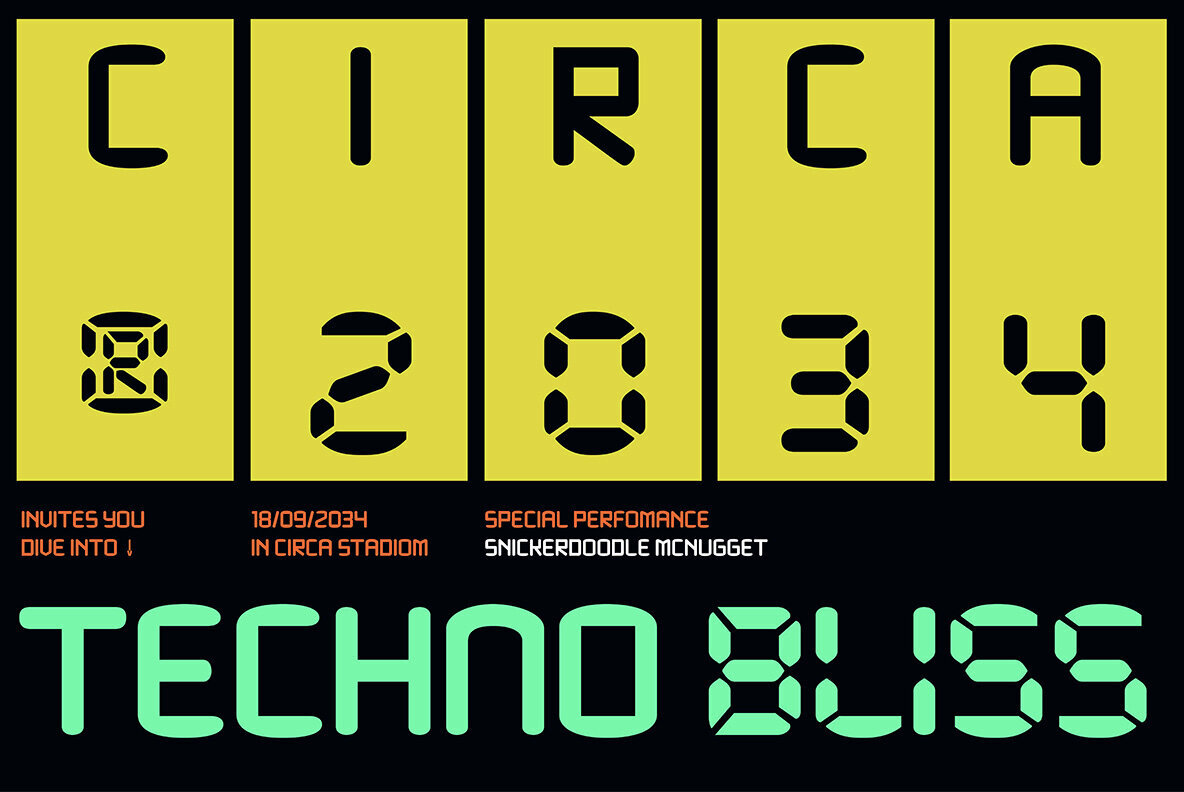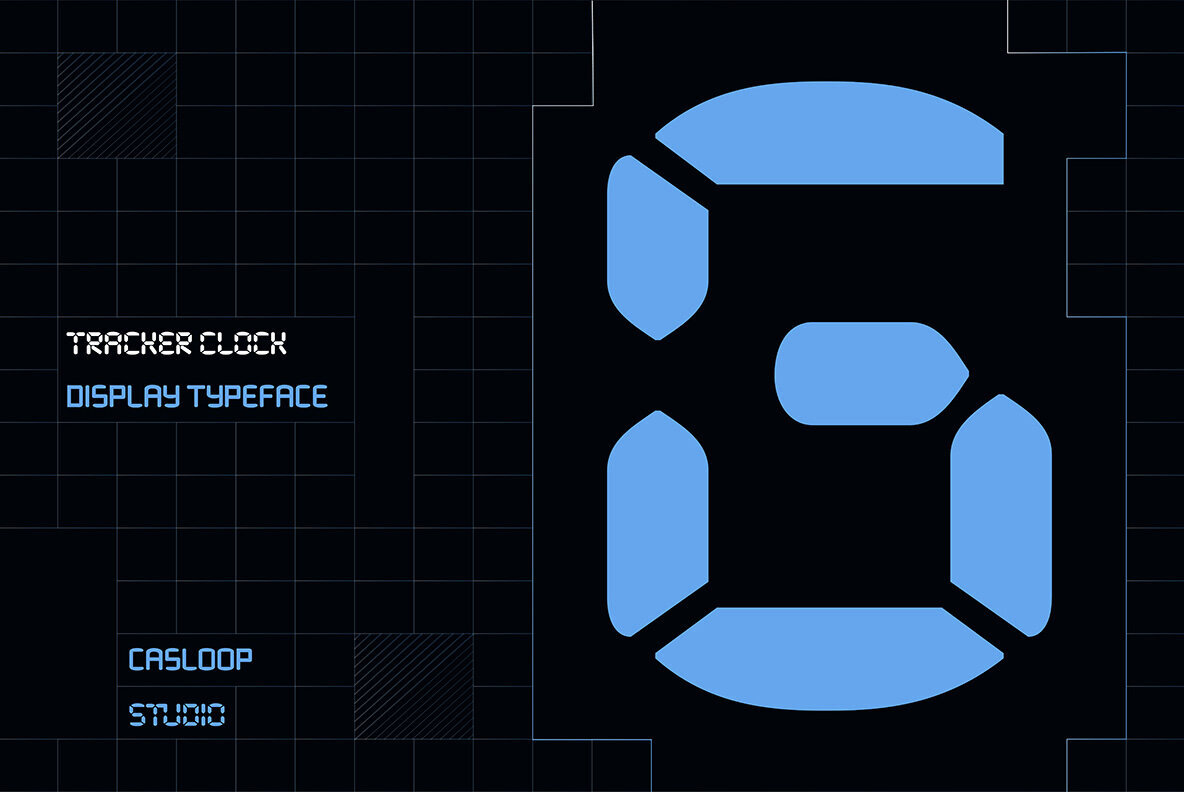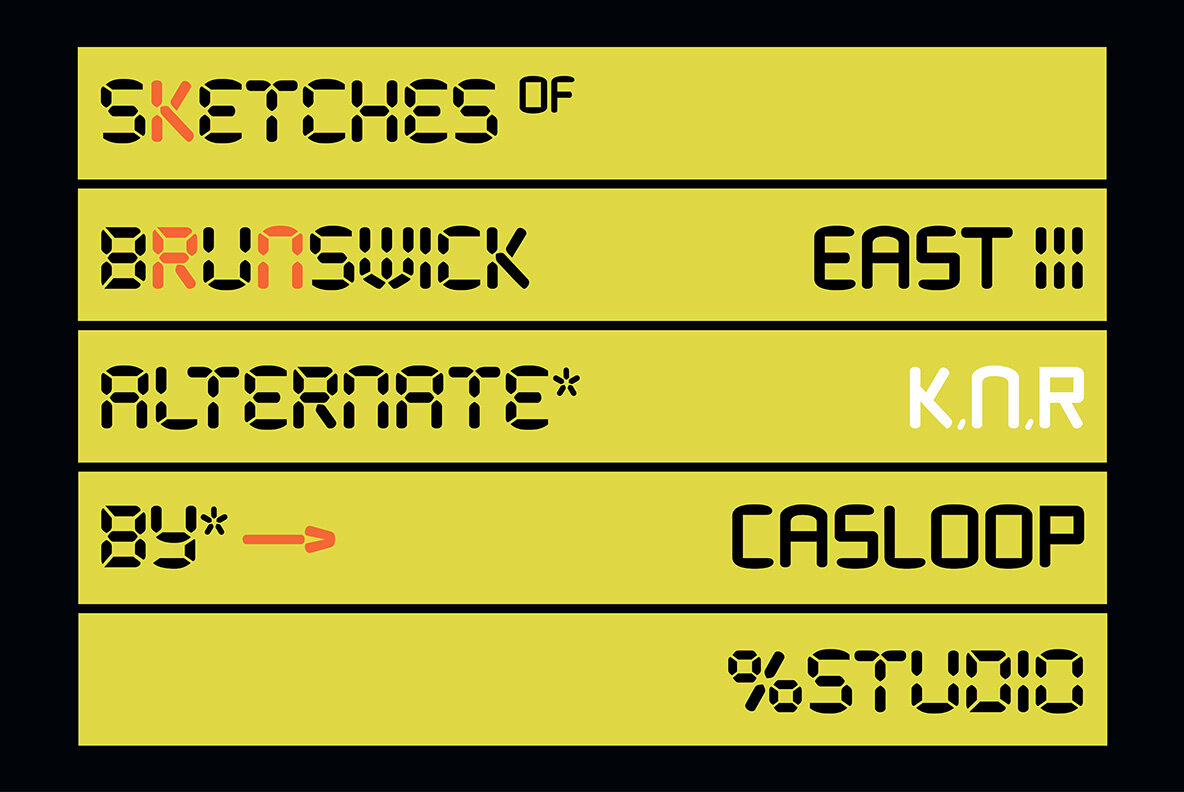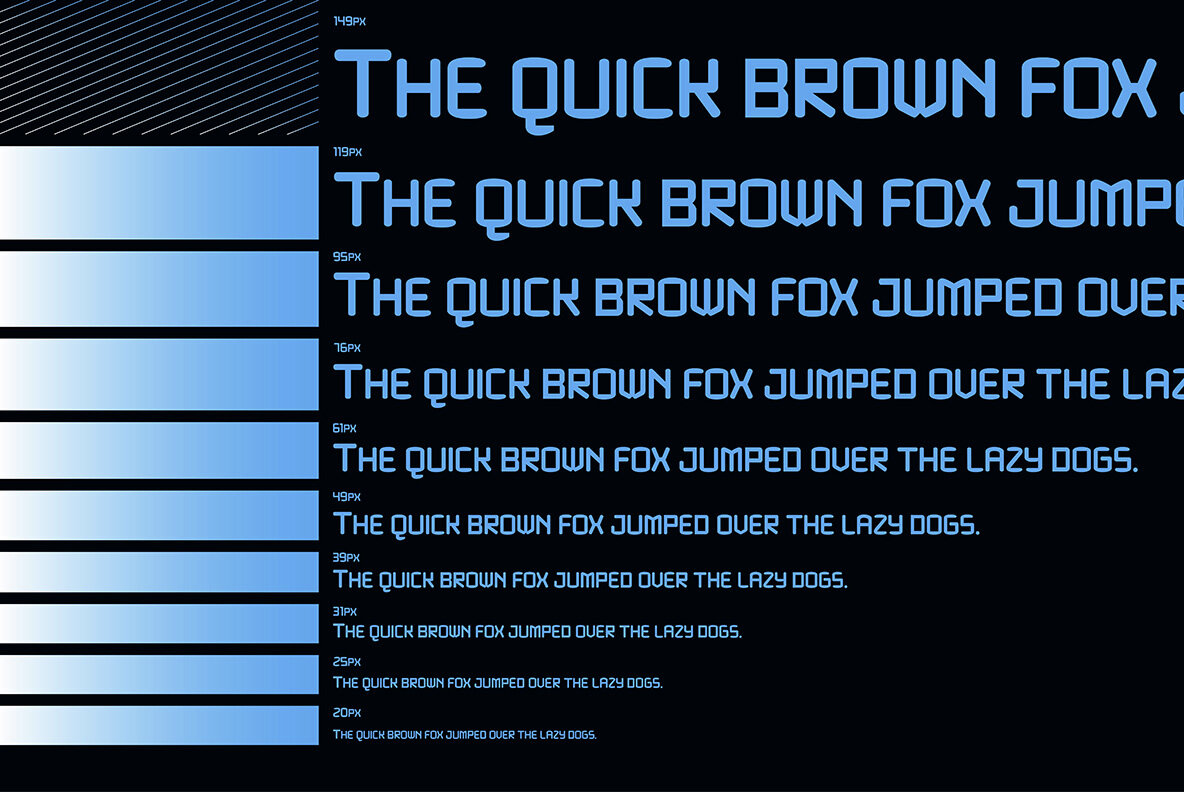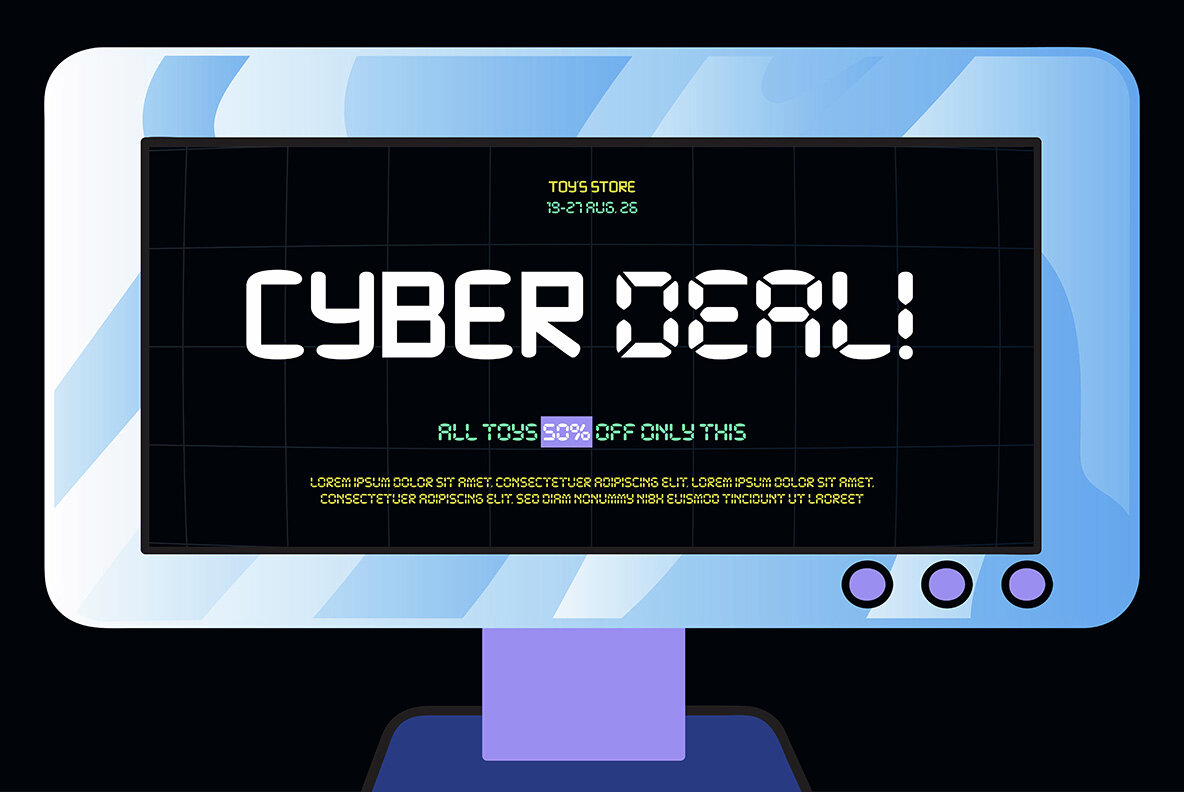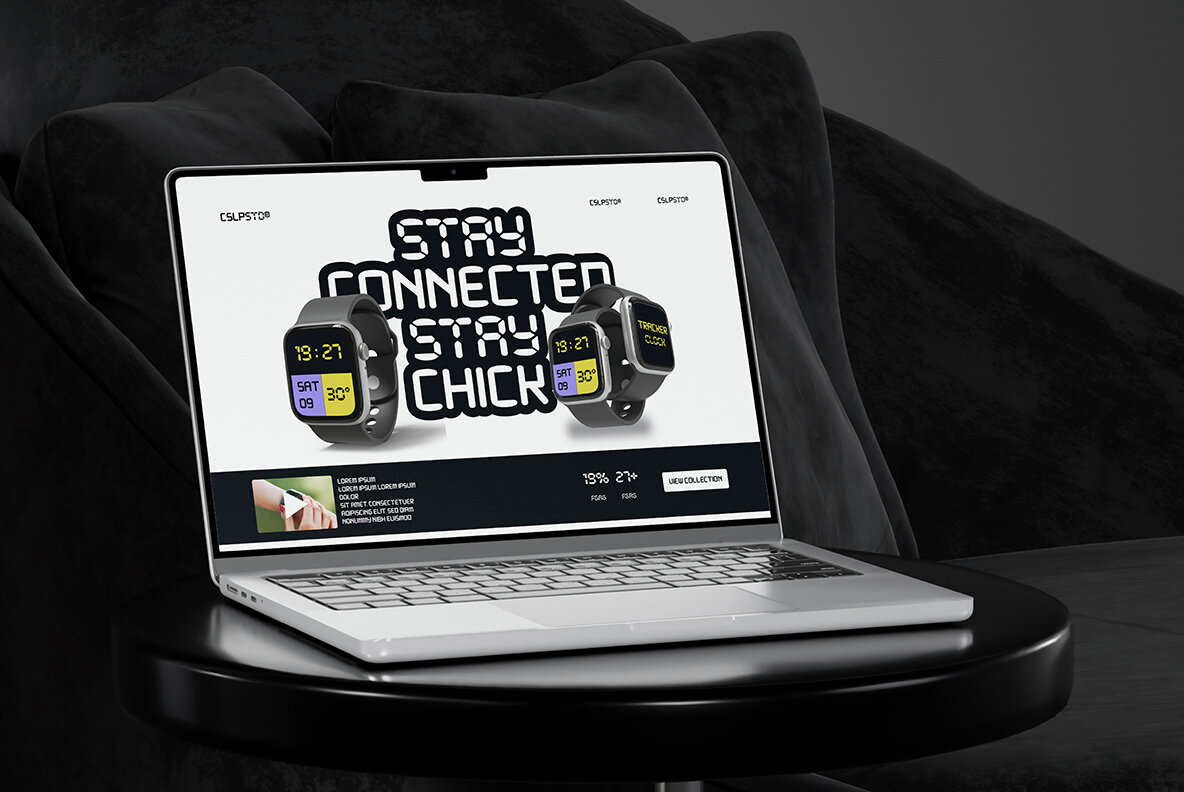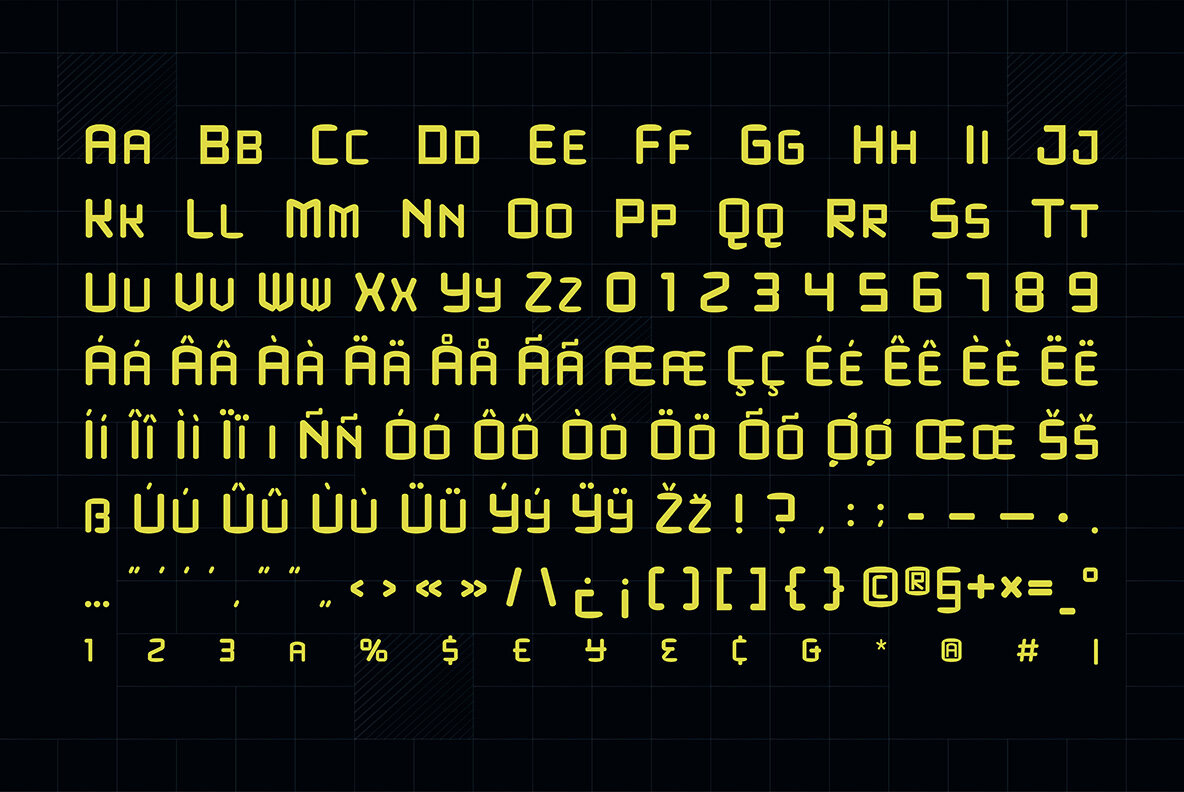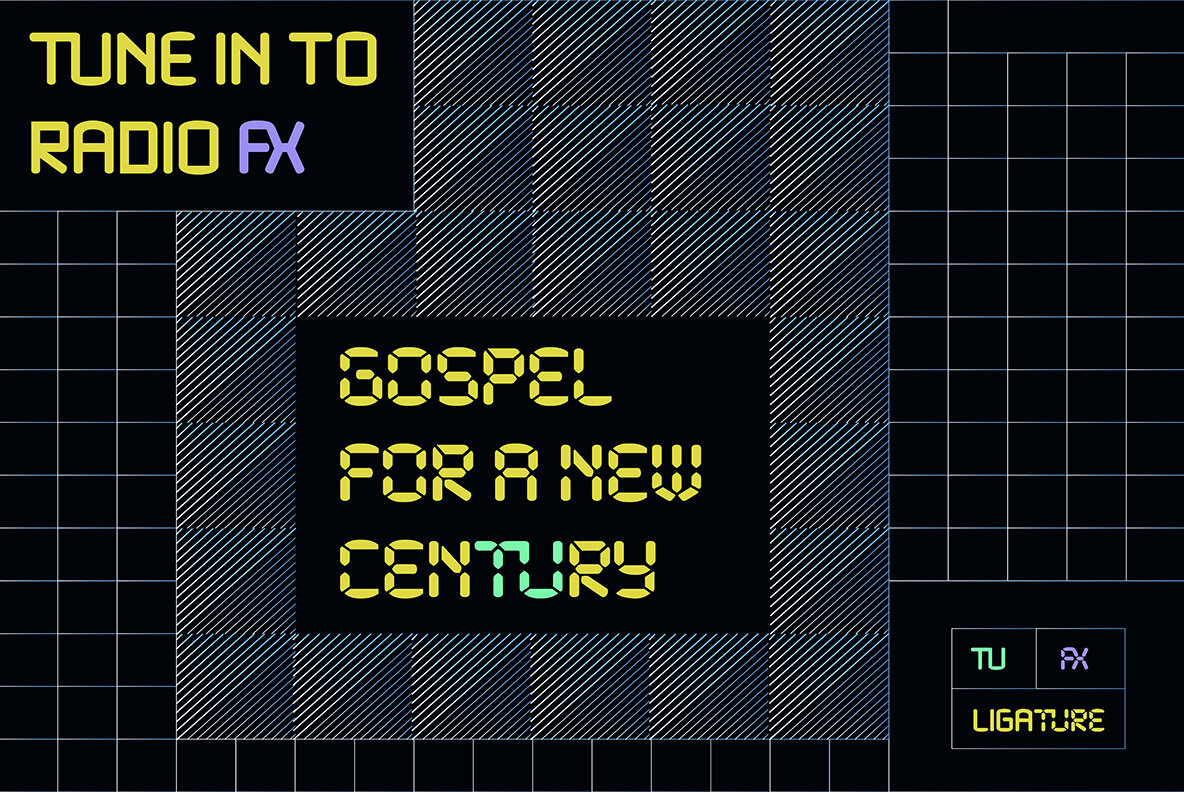
Introducing Tracker Clock, a cutting-edge font drawing inspiration from the sleek design of the ETCH Clock, stopwatch precision, and the reliable nature of quartz timekeeping. This digital typeface is not just a font; it's a functional work of art for the modern era. Tracker Clock stands out with its unique blend of Retro Flat aesthetics, whimsy reminiscent of the Memphis style, and the evocative nostalgia of Modern Nostalgia. Its sleek design captures the essence of the 80s and Y2K, making it the perfect choice for anyone seeking a font that seamlessly blends the past with the future. In the realm of digital design, Tracker Clock reigns supreme. Whether you're crafting a website, designing a logo, creating impactful branding, or developing eye-catching posters, this font brings a sci-fi, cyberpunk vibe that instantly elevates your project. The monospace style, combined with 8-bit and bitmap influences, ensures a distinctive and memorable visual impact. Tracker Clock doesn't just tell time; it narrates stories of the future. With functionality rooted in New Year countdowns, temperature degrees, pixel precision, and stopwatch precision, this font becomes a versatile tool for conveying not just time but also the essence of the moment. Its halftone and techno undertones add a dynamic edge that suits the contemporary design landscape. Supported Languages: _Bosnian, Catalan, Czech, Danish, German, English, Spanish, Estonian, Finnish, French, Brice, Irish, Croatian, Hungarian, Icelandic, Italian, Lithuanian, Dog, Latvian, Maltese, Dutch, Norwegian, Polish, Disney, Portuguese, Donut, Romanian, Slovak, Slovenian, Dripping, Albanian, Swedish, Turkish. Features :